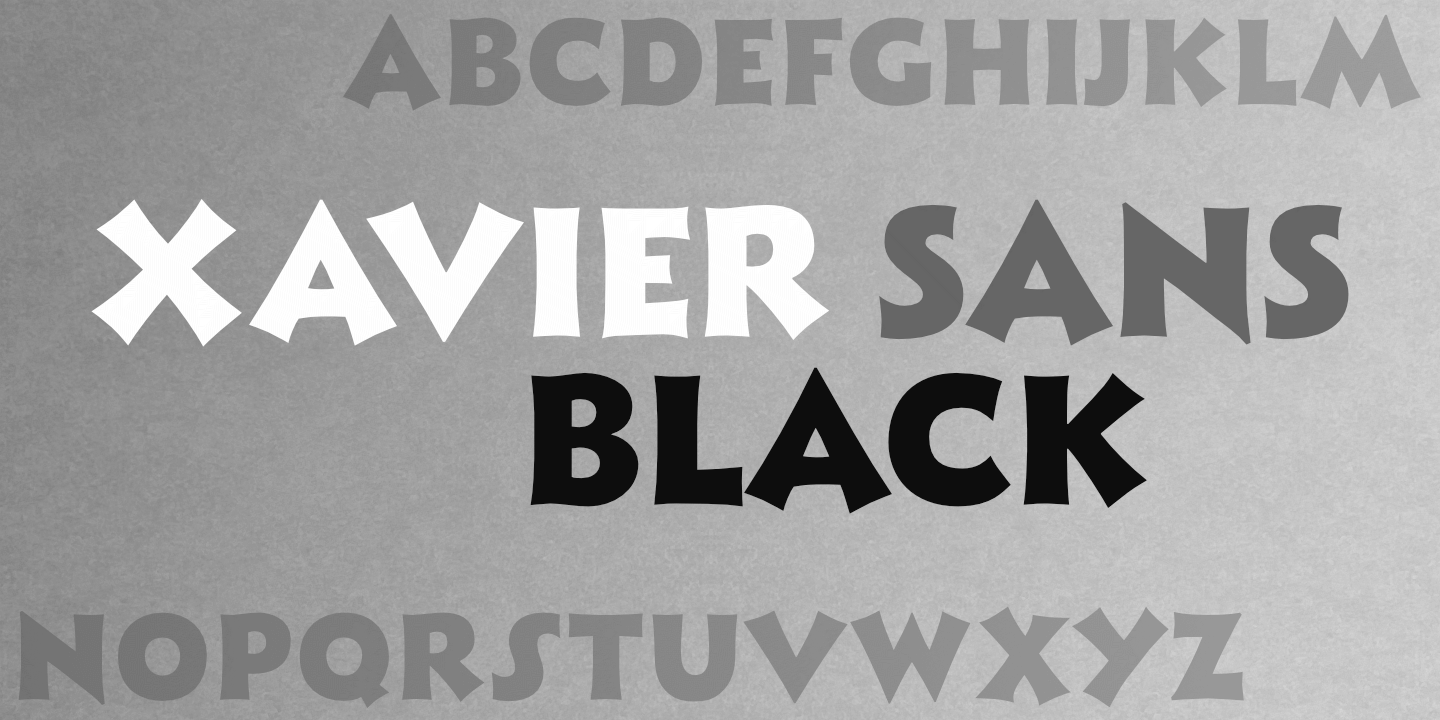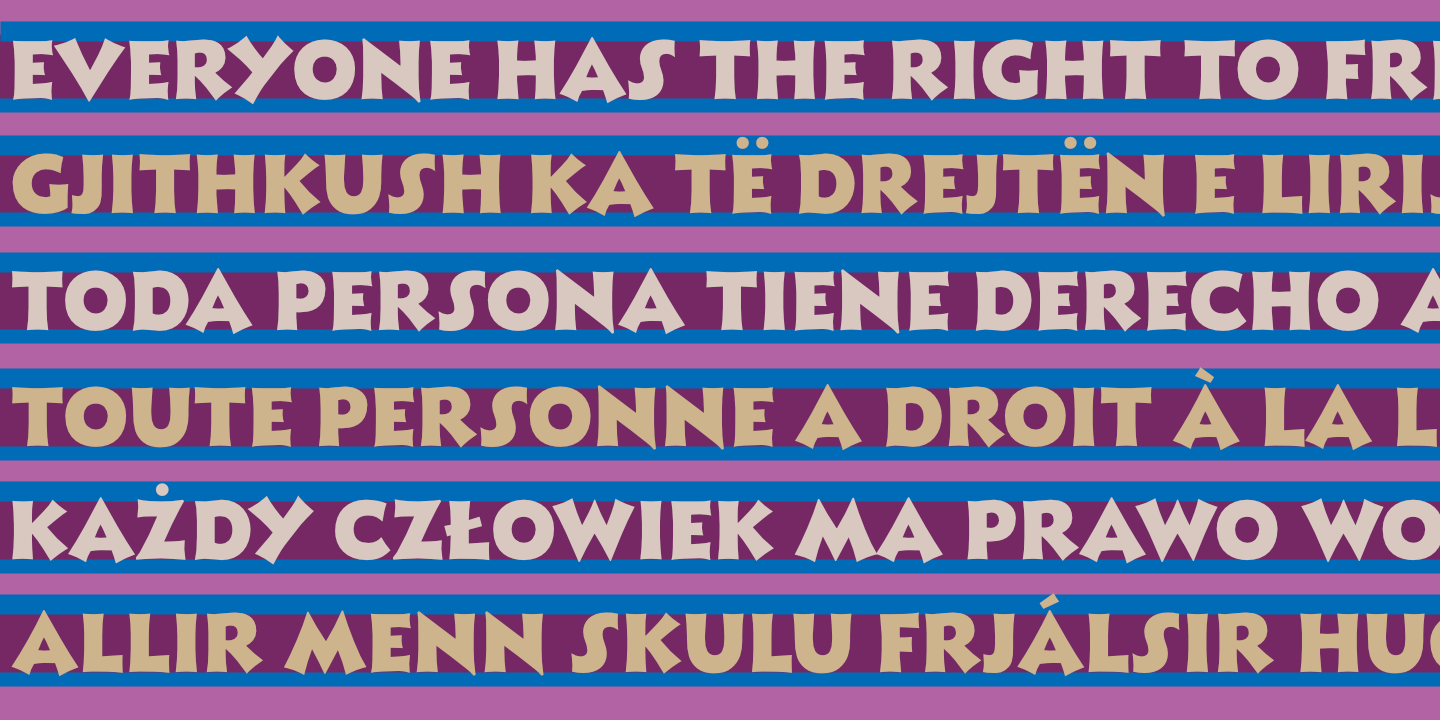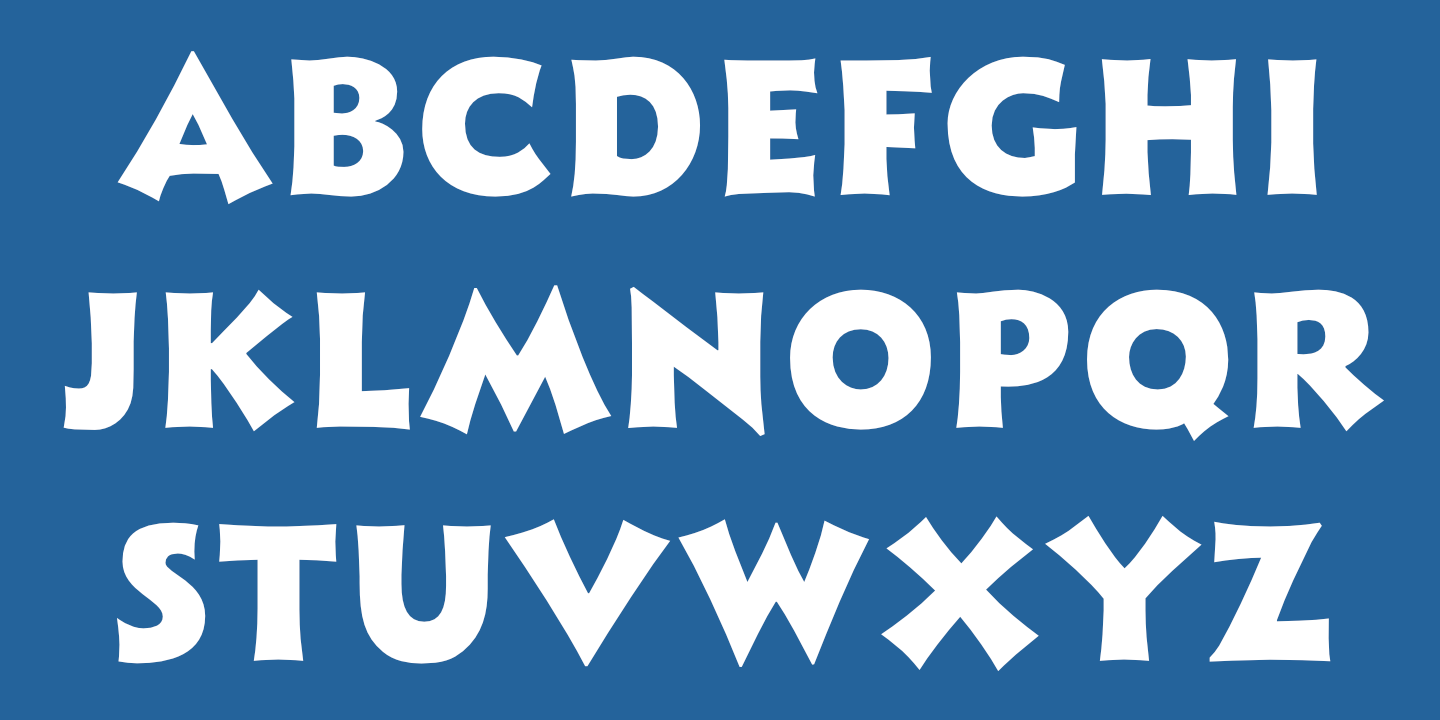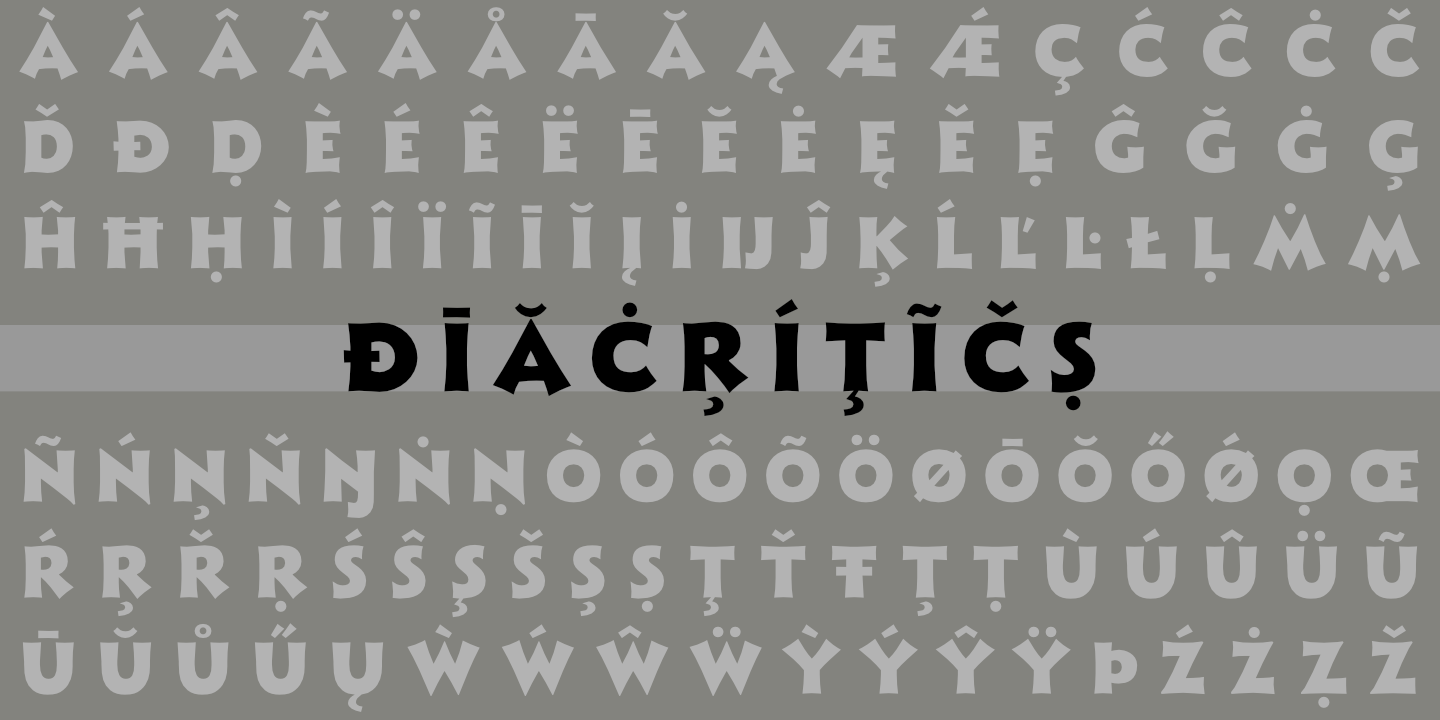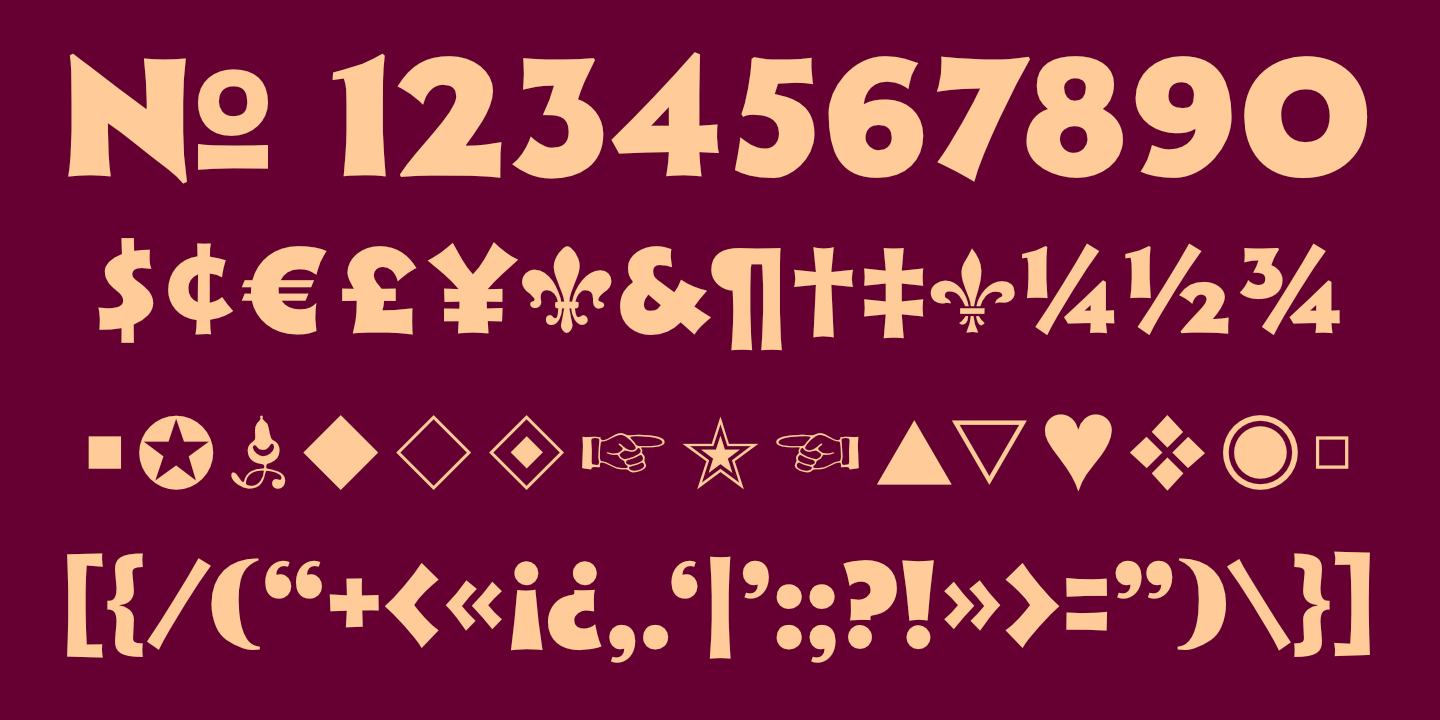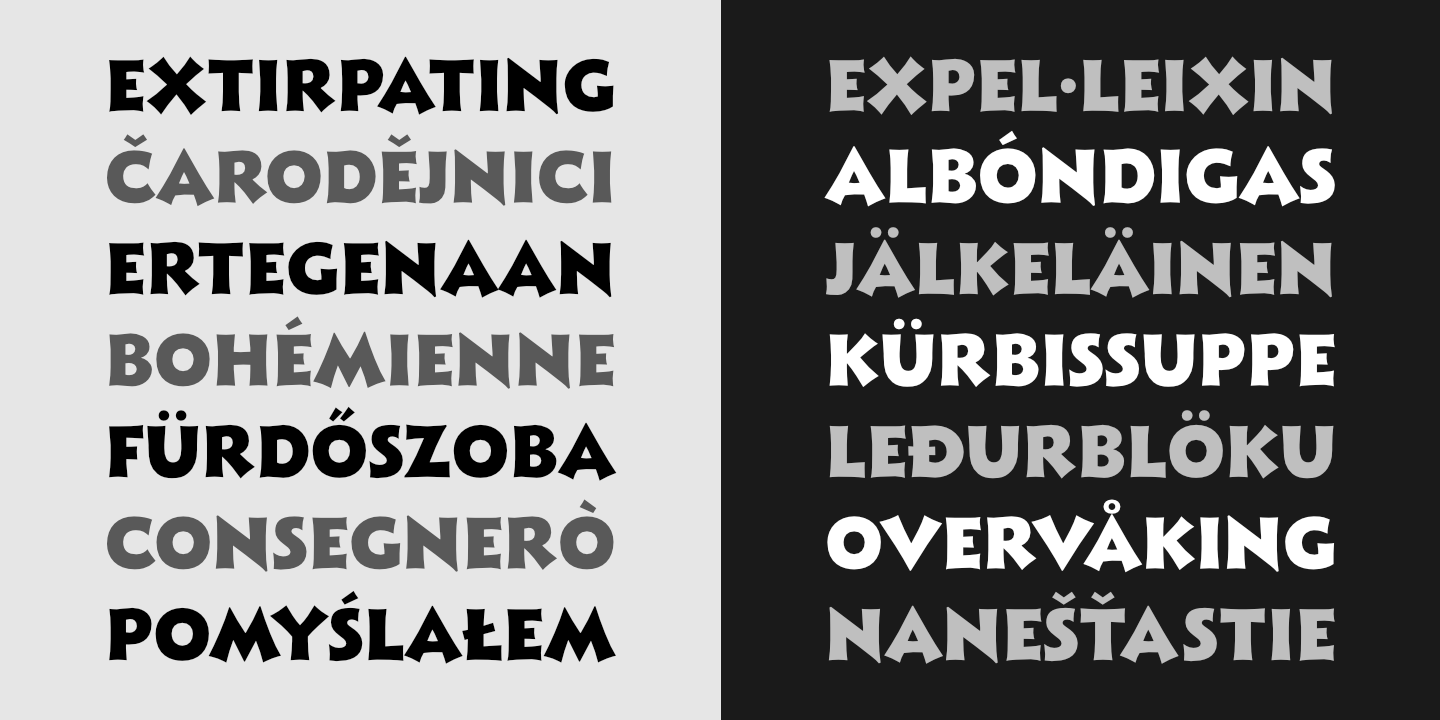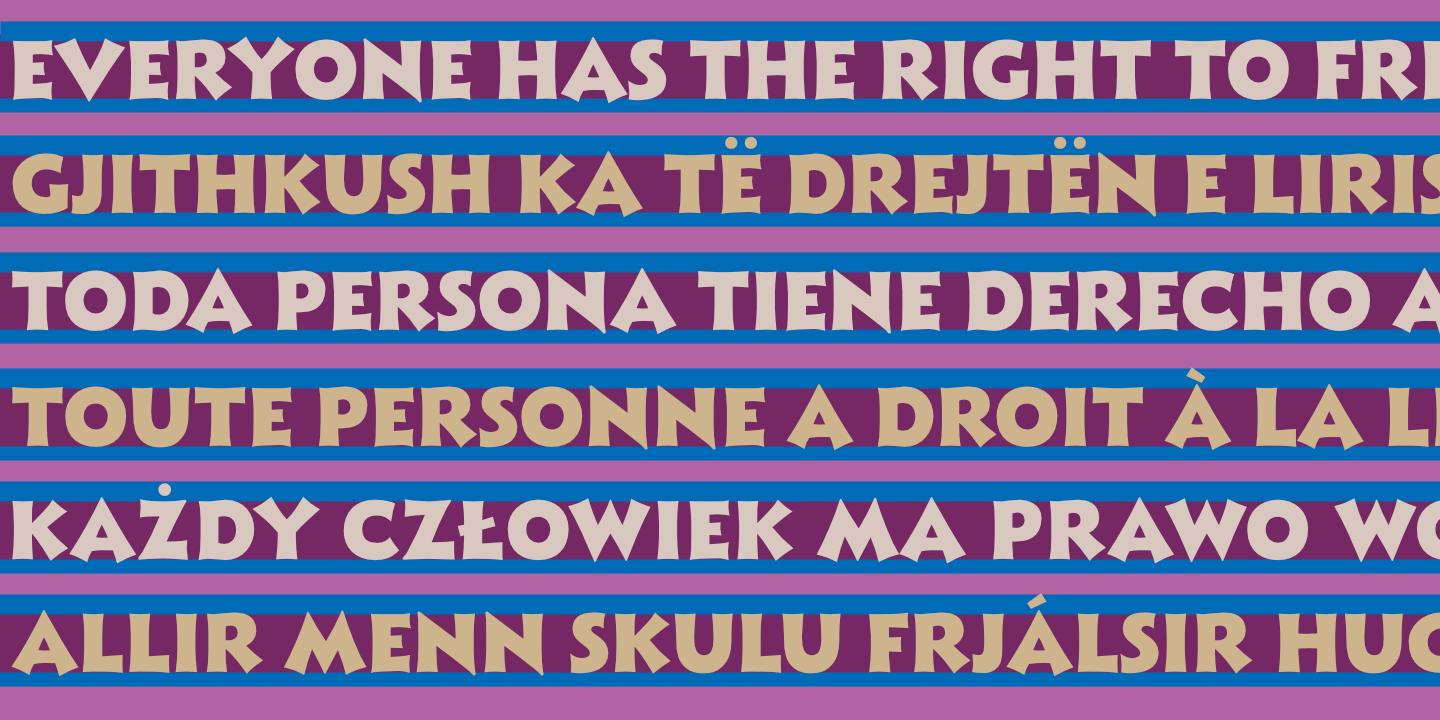
Xavier Sans Black: Basic Latin alphabet. See Glyphs for details.
Xavier Sans Black: Numerals, basic punctuation, currency symbols, and a sampling of ornaments.
Xavier Sans Black supports many European languages. See Glyphs for details. Art deco style above, modern below.